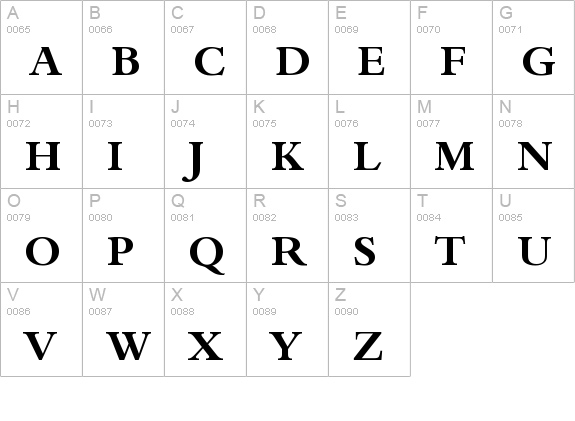
BambergSerial-Bold is a strong, high-contrast variant in the BambergSerial typeface family \xE2\x80\x94 well suited to headlines, attention-grabbing titles, and strong calls-to-action.